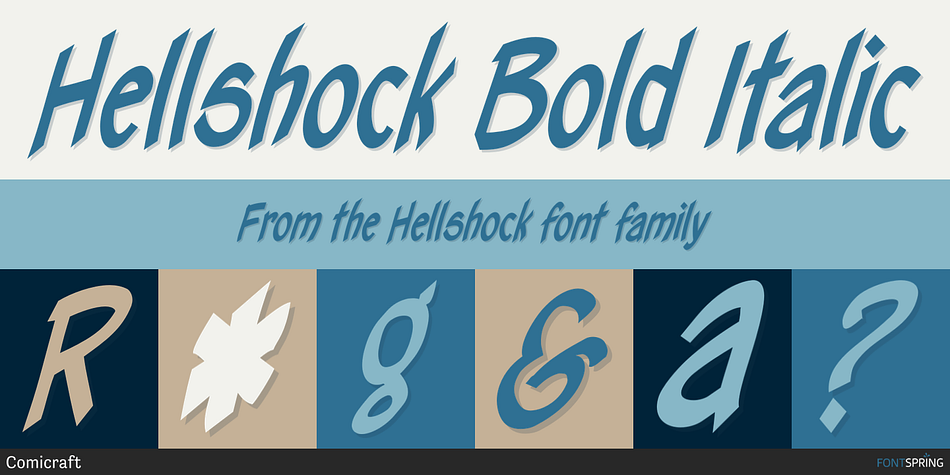
Hellshock Bold Italic
Designed by John Roshell, Hellshock is a comic and hand drawn font family. This typeface has four styles and was published by Comicraft.
Check into your local lunatic asylum with this font, etched on the walls of his padded cell by Comicraft’s left-handed right-hand man, Dave Lanphear, for Jae Lee’s Image comic Hellshock